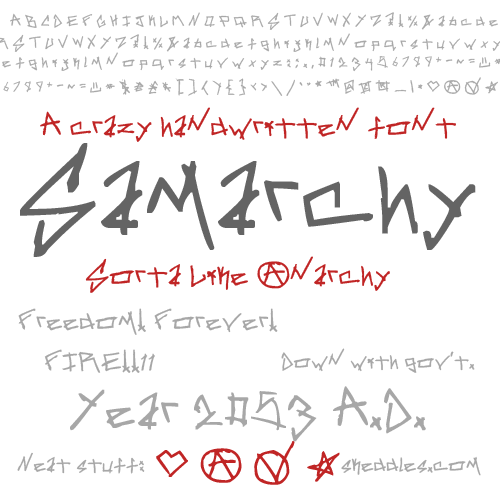
A font based on a style of writing I like to do. --- All my fonts are free for personal and commercial use. If you use it I'd love to see. More fonts and other stuff at Skeddles.com |